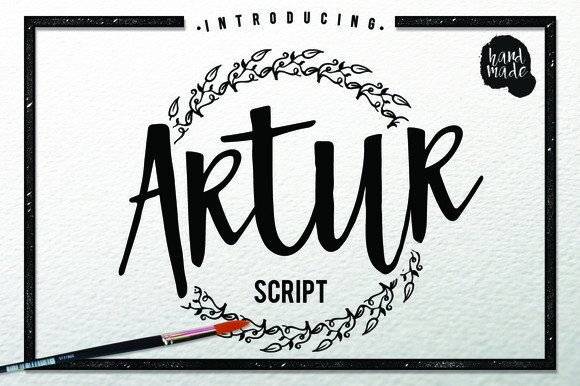
The Elegant Touch: Discovering Artur Font
I’ll never forget the time I was working on a logo design project for a high-end boutique hotel. My client wanted a sophisticated, elegant look that would appeal to their upscale clientele. As I scrolled through my font library, I stumbled upon Artur Font, and it was love at first sight! ✨ The clean lines, refined curves, and luxurious feel instantly resonated with my design vision. In this article, I’ll share my experience with Artur Font, its features, and how to make the most of it in your designs.
- ✅ Elegant and sophisticated design
- ✨ Versatile and suitable for various design projects
- 🔥 Perfect for headings, logos, and titles
- 🎨 Supports OpenType features and glyphs
While Artur Font is an excellent choice for many design projects, there are a few things to keep in mind: 🤔
- ⚠️ May not be the best fit for body text or long paragraphs
- ⚠️ Some characters may not work well in small sizes
The Designer Inspiration Behind Artur Font
Artur Font was designed with the goal of creating a modern, elegant typeface that would cater to the needs of designers seeking a sophisticated look. The font’s creator aimed to craft a versatile font that would be suitable for various design projects, from headings and logos to invitations and posters.
| Font Name | Artur Font |
| Author | Giemons |
| What type of designs is Artur Font best suited for? | Artur Font is perfect for designs that require an elegant touch, such as headings, logos, invitations, t-shirt designs, greeting cards, posters, labels, book covers, brochures, and more! |
| Can I use Artur Font for body text? | While Artur Font is primarily designed for headings and titles, it can be used for short paragraphs or body text. However, it’s recommended to use a clear, readable font for longer texts. |
| Does Artur Font support OpenType features? | Yes, Artur Font supports OpenType features, including glyphs and stylistic alternates. You can access these features in compatible design software, such as Adobe Creative Cloud apps. |